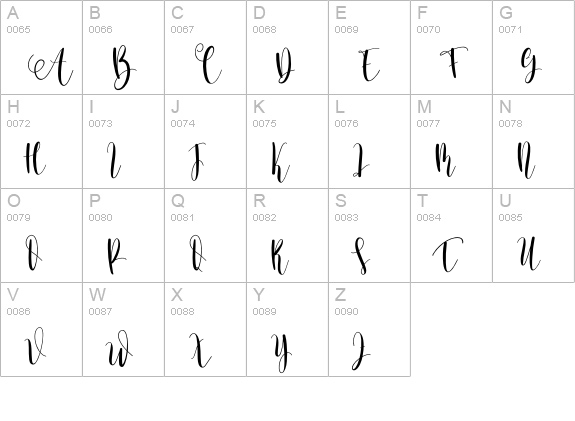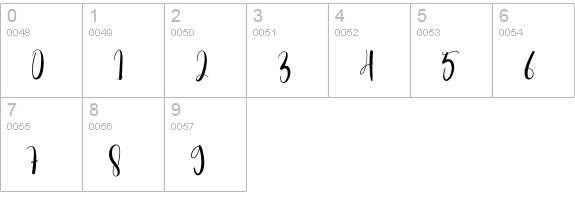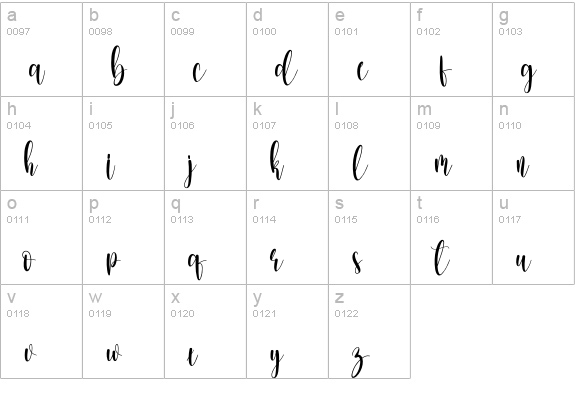
Morningtime Font Details
Introducing Morningtime font, a delightful and whimsical typeface that is perfect for adding a touch of charm to your designs. This unique font features elegant curves and playful details that make it stand out from the crowd. Whether you're designing a greeting card, a poster, or a logo, Morningtime font will bring a sense of joy and sophistication to your project.